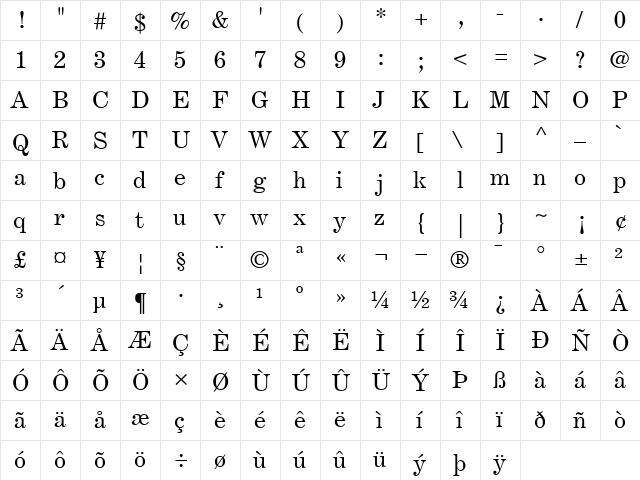
CenturyRoman-Expanded Roman
Design Context for CenturyRoman-Expanded Typeface
CenturyRoman-Expanded takes a measured approach to typography — its balanced proportions and neutral character make it a reliable workhorse for both digital and print work.
Pro Tip: Use CenturyRoman-Expanded in both headline and body roles to test its range before committing to a single application.